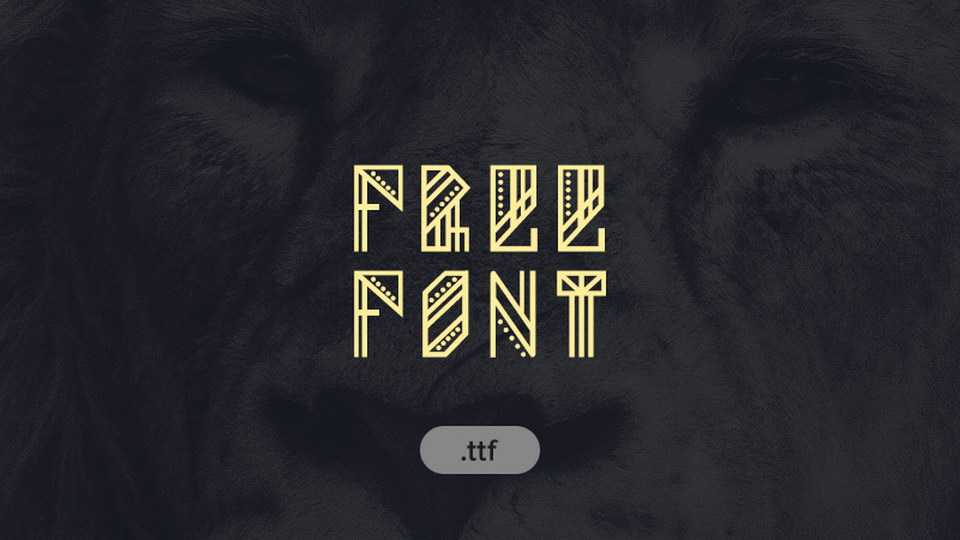
Download Kingsley Common font, a beautiful decorative display typeface with geometric ornaments. Kingsley Common font is perfect for branding, headlines, posters and other creative typography projects.